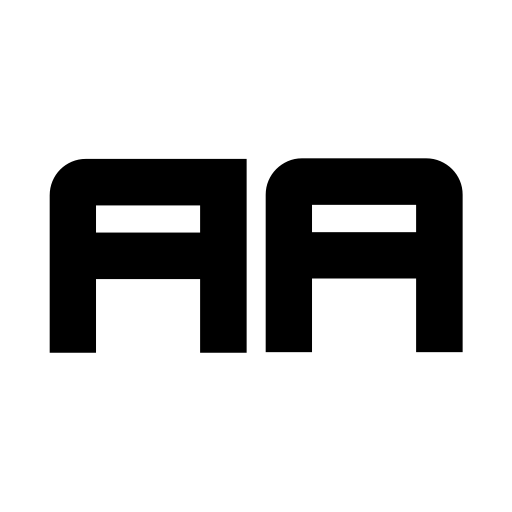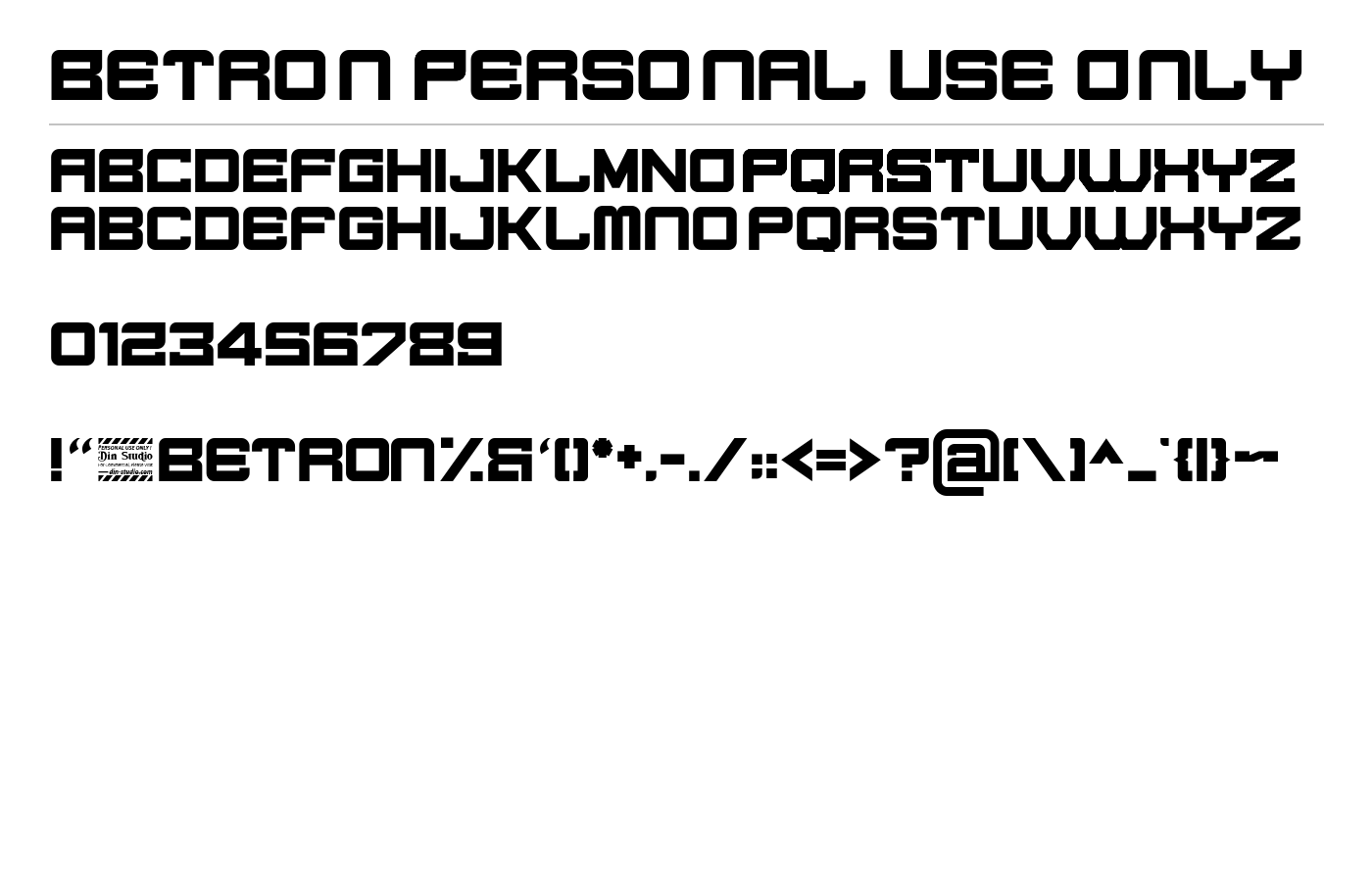
Betron Personal Use Only is a bold, wide sans serif font with a futuristic, geometric style that features consistent stroke widths and a distinctive squared-off design. Its uppercase letters have a strong and modern presence, making it ideal for headlines, logos, and branding projects that seek a tech-savvy and dynamic feel. This font works well in digital and print contexts where impact and readability at larger sizes are key.
Betron Personal Use Only Font
About Betron Personal Use Only Font